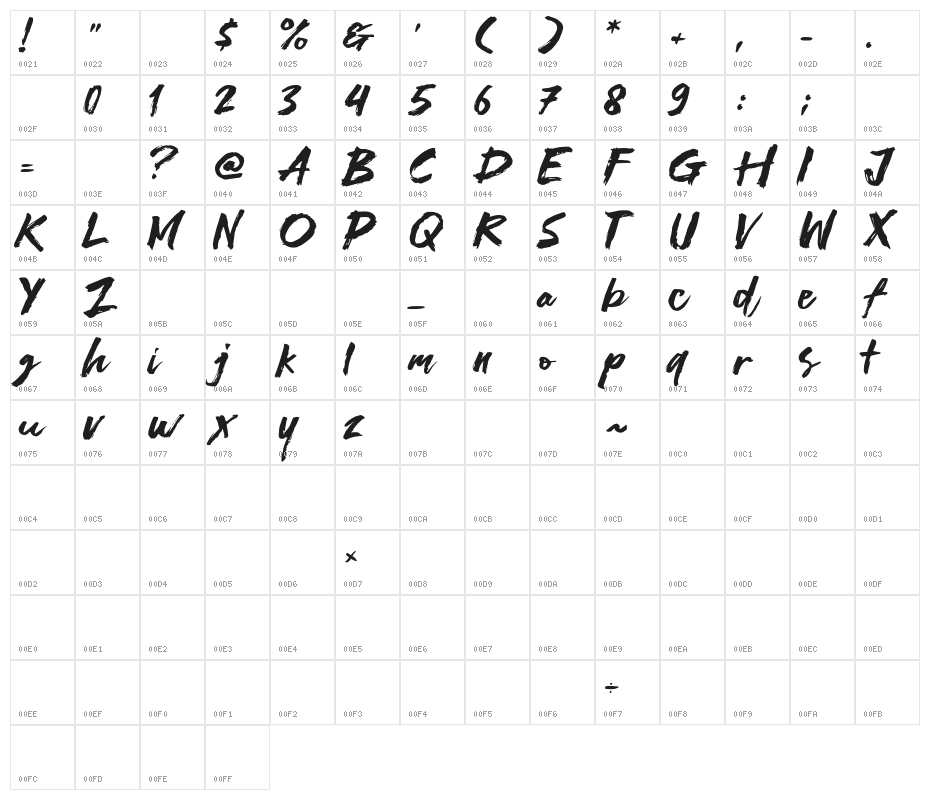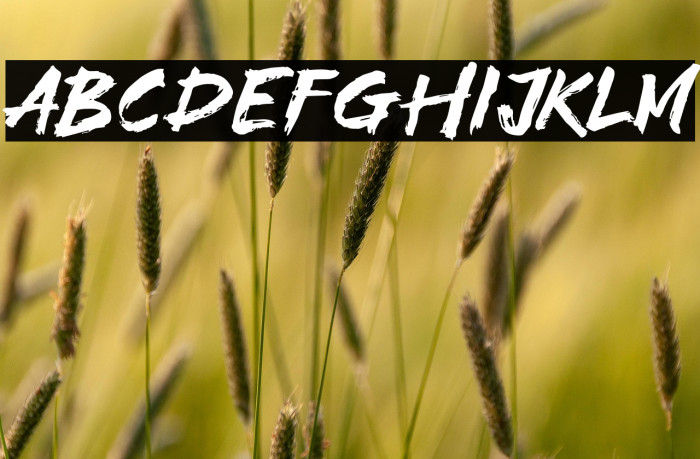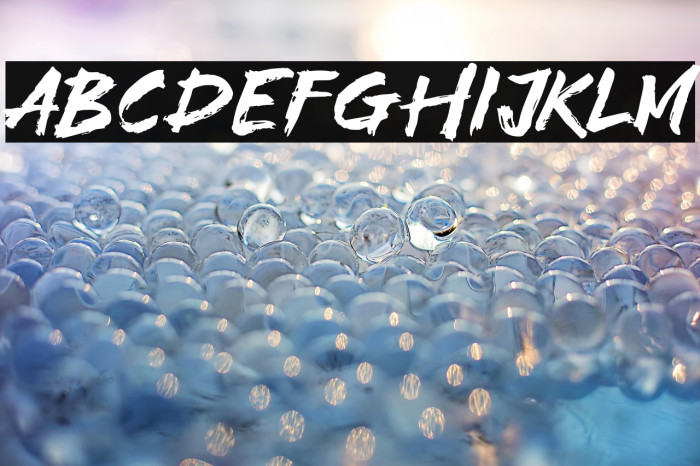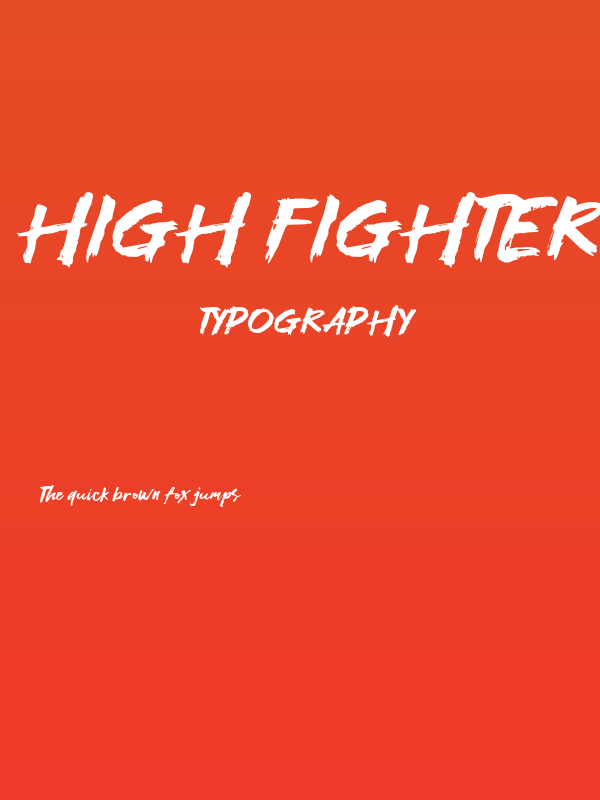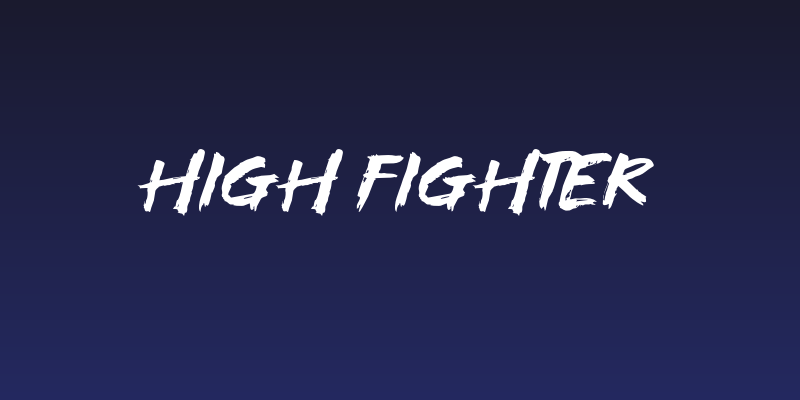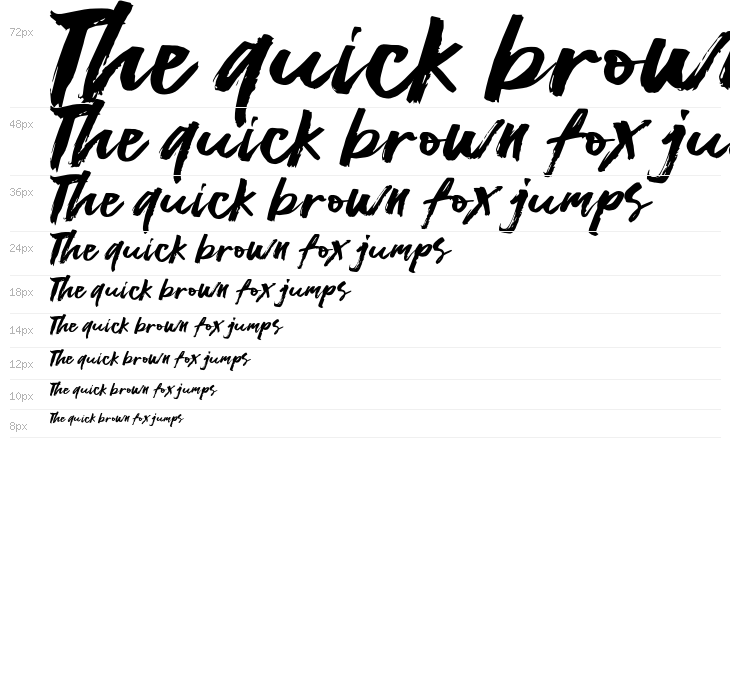
High Fighter Font
High Fighter Description
This font exudes a bold and energetic style, characterized by its brush-like strokes and dynamic flow. The letters are crafted with a sense of movement, giving them a lively and expressive appearance. The uppercase and lowercase characters maintain a consistent style, with slightly irregular edges that add to the handcrafted feel. The numbers and special characters follow the same aesthetic, ensuring a cohesive look across all elements. This font is perfect for projects that require a strong and impactful visual presence.
| Proposed Projects | Ideal for posters, branding, packaging, and any design needing a bold, artistic touch. |